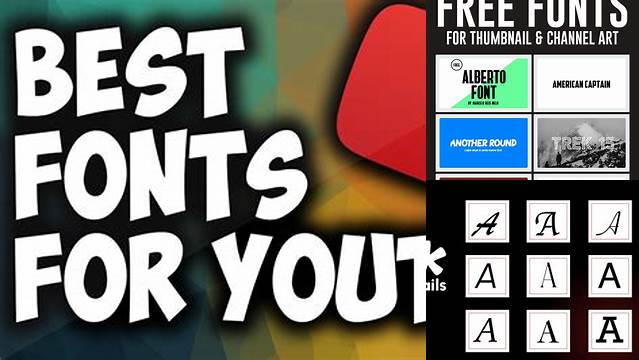
Best Fonts For YouTube Videos: Enhance Your Visuals
Choosing the right fonts for your YouTube videos is crucial for making your content visually appealing and engaging. The fonts you use can significantly impact how viewers perceive your message and the overall quality of your channel. So, what are some good fonts to use for YouTube videos? Let's dive in and explore some fantastic options that will help your videos stand out.
Why Font Choice Matters for YouTube Videos
Before we jump into specific font recommendations, let's quickly discuss why font choice is so important. Your video's text elements, including titles, subtitles, lower thirds, and end screens, are key to conveying information and reinforcing your brand. Imagine watching a video with a font that's hard to read or doesn't match the video's style—it can be a real turn-off! Good fonts enhance readability, create a professional look, and help maintain viewer interest. Think of it this way: your fonts are part of your visual storytelling, just like your graphics, editing, and on-screen presence. Using the right font is like choosing the perfect outfit for a special occasion; it sets the tone and makes a lasting impression. On the other hand, using a subpar font is like showing up in mismatched socks – it distracts from the overall impact. So, make sure your font choices complement your content and brand.
Best Font Categories for YouTube Videos
When selecting fonts for your YouTube videos, it's helpful to understand the different categories. Each category has its own personality and works best in certain contexts. Here are the main types you should know about:
Serif fonts are characterized by the small decorative strokes (serifs) at the end of the letters. They often convey a sense of tradition, authority, and elegance. Think of classic fonts like Times New Roman or Georgia. While serif fonts can look great, they might not always be the best choice for on-screen text, especially at smaller sizes. The serifs can sometimes make the letters appear cluttered or less legible on screens. However, if you're aiming for a formal or sophisticated vibe, a well-chosen serif font can work wonders, especially for titles or headings. Just make sure to use them sparingly and in larger sizes to maintain readability. Imagine using a serif font for the title of a documentary or a historical video—it can add a touch of gravitas and credibility. But for fast-paced or modern content, you might want to explore other options.
Sans-serif fonts are the modern cousins of serif fonts. They lack the decorative strokes, giving them a cleaner, more minimalist appearance. Fonts like Arial, Helvetica, and Open Sans fall into this category. Sans-serif fonts are generally considered more readable on screens, making them a popular choice for YouTube videos. They work well for subtitles, lower thirds, and any other text that needs to be easily legible. Plus, they come in a wide variety of styles, from bold and impactful to light and airy, so you can find a sans-serif font to match almost any video style. If you're creating a tutorial, a vlog, or an animated explainer, a sans-serif font is often a safe and stylish bet. They provide clarity and don't distract from the visuals, which is crucial for keeping your viewers engaged. Think of sans-serif fonts as the workhorses of the font world—they're reliable, versatile, and always get the job done.
Display Fonts
Display fonts are the rockstars of the font world! These are the fonts that make a statement. They're designed to grab attention and are often used for titles, logos, and other prominent text elements. Display fonts come in a huge range of styles, from playful and quirky to bold and dramatic. However, it's important to use display fonts sparingly. They're not ideal for body text or subtitles because they can be difficult to read in large blocks. Think of them as the seasoning in your font recipe—a little goes a long way! When used effectively, display fonts can add personality and flair to your videos. If you're creating a gaming channel, a bold, futuristic display font might be perfect for your logo. Or, if you're running a creative vlog, a handwritten-style display font could add a personal touch. Just remember to prioritize readability and make sure your display font complements your overall visual style.
Script Fonts
Script fonts mimic the look of handwriting. They can add a touch of elegance, personality, and warmth to your videos. Think of fonts that look like calligraphy or cursive. Script fonts are great for creating a personal and intimate feel, but like display fonts, they should be used with caution. Overusing script fonts can make your text difficult to read, especially on smaller screens. They're best reserved for titles, logos, or short phrases where you want to make a stylish statement. Imagine using a script font for the title of a cooking video or a lifestyle vlog—it can add a touch of sophistication and charm. However, avoid using script fonts for subtitles or lengthy text blocks, as they can quickly become tiring for viewers to read. Think of script fonts as the special occasion fonts—they're perfect for adding a touch of flair, but not for everyday use.
Top Font Recommendations for YouTube
Now that we've covered the main font categories, let's get down to specifics! Here are some top font recommendations that work exceptionally well for YouTube videos:
Open Sans
Open Sans is a classic sans-serif font that's incredibly versatile and readable. It's clean, modern, and works well in a variety of contexts. Whether you're creating a tutorial, a vlog, or a business presentation, Open Sans is a solid choice. Its simple and straightforward design ensures that your text is always clear and easy to read, which is crucial for keeping your viewers engaged. Plus, it comes in a range of weights, from light to bold, giving you plenty of flexibility to create visual hierarchy in your text. Open Sans is like the Swiss Army knife of fonts—it's reliable, adaptable, and always delivers. If you're looking for a font that you can use across all your videos, Open Sans is a fantastic option. It's professional, approachable, and won't distract from your content.
Montserrat
Montserrat is another popular sans-serif font that's known for its modern and geometric design. It has a slightly more distinctive look than Open Sans, making it a great choice if you want your text to stand out a bit more. Montserrat is particularly well-suited for titles, headings, and lower thirds. Its bold and contemporary style can add a touch of sophistication to your videos, while still maintaining excellent readability. If you're creating content related to technology, design, or fashion, Montserrat can be a perfect fit. It conveys a sense of innovation and style, without being overly flashy or distracting. Plus, like Open Sans, it comes in multiple weights, allowing you to create visual interest and emphasis in your text. Montserrat is a font that strikes the perfect balance between modern and readable, making it a top choice for YouTube creators.
Roboto
Roboto is a sans-serif font family developed by Google, and it's widely used across the web and in mobile apps. It's known for its clean, geometric forms and excellent readability, making it a fantastic choice for YouTube videos. Roboto offers a friendly and approachable feel, making it suitable for a wide range of content styles. Whether you're creating educational videos, vlogs, or product reviews, Roboto can help you communicate your message clearly and effectively. Its open and airy design ensures that your text remains legible even at smaller sizes, which is particularly important for subtitles and lower thirds. Plus, the Roboto family includes a variety of weights and styles, giving you plenty of options to create visual interest and hierarchy in your text. Roboto is a reliable and versatile font that will help your videos look professional and polished.
Choosing the right fonts for your YouTube videos is a small detail that can make a big difference. By considering readability, brand identity, and the specific needs of your content, you can select fonts that enhance your videos and engage your audience. So, take the time to explore different options and find the perfect fonts to elevate your YouTube channel!